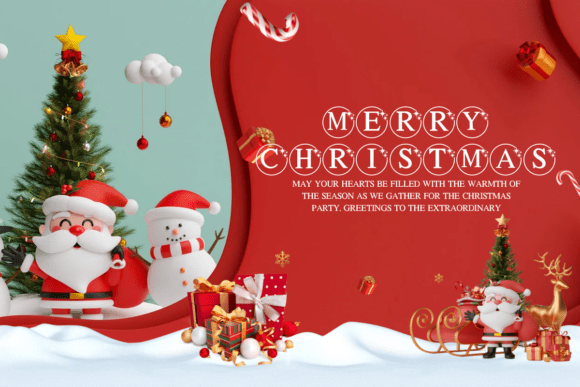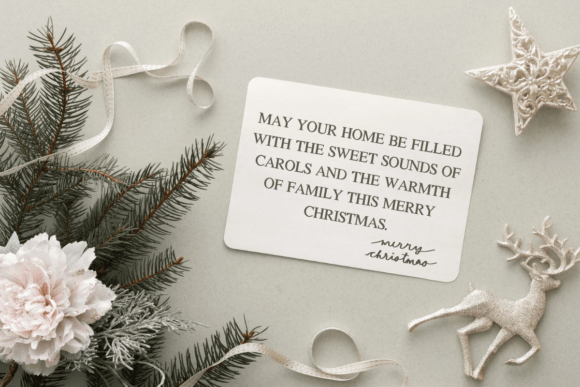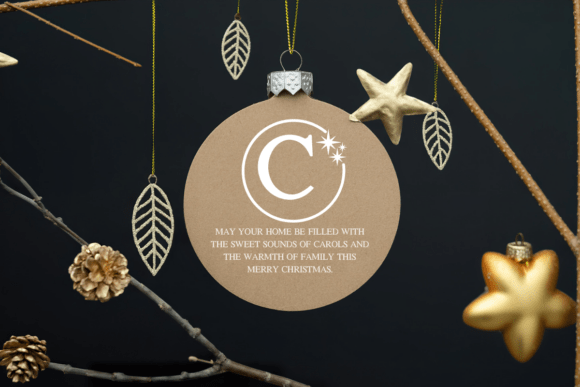
Introduction to Merry Luxe Font
Introducing Merry Luxe – an enchanting decorative font, dynamically versatile, and perfect for all your creative pursuits.
This artistic imprint lends itself seamlessly to journaling endeavors and heartfelt greeting cards, effectively capturing the whimsical essence of your thoughts But the charm of Merry Luxe doesn’t stop there; stretch the bounds of creativity by featuring it on everything from striking event banners to compelling written content.